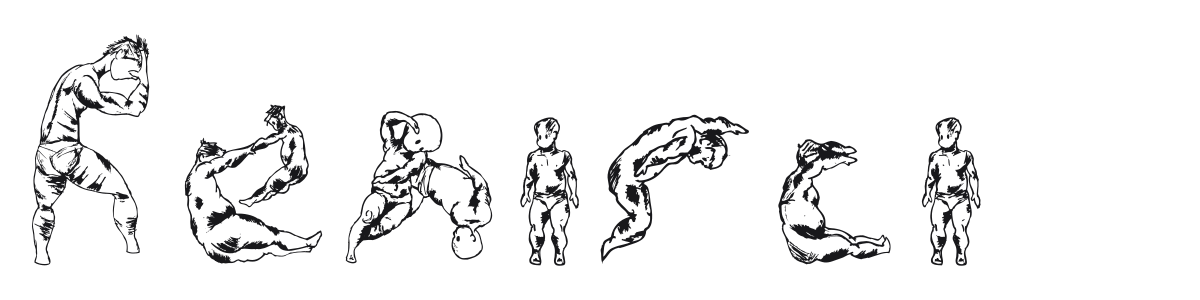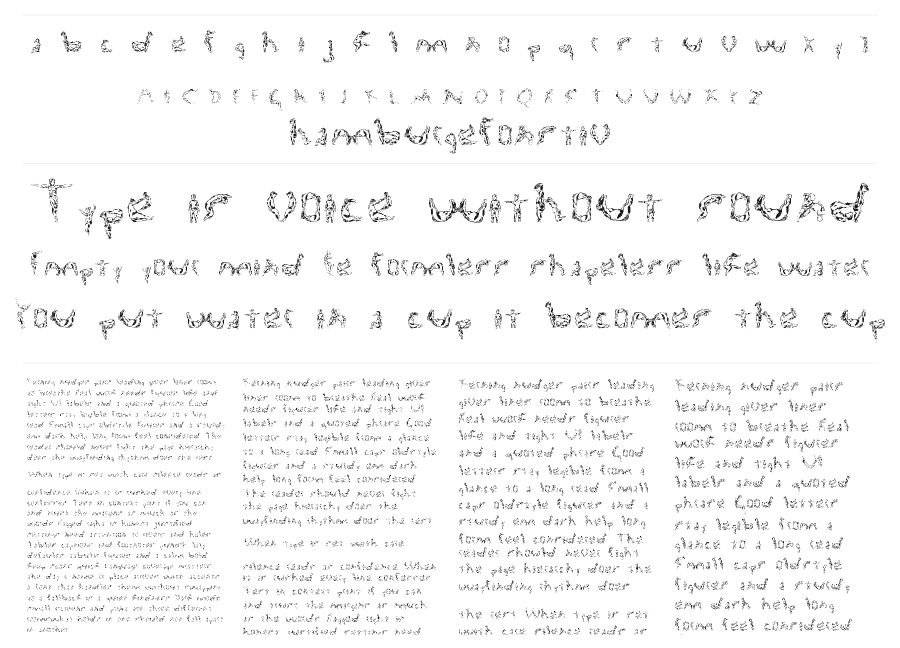
Renisci
by Christian De La Rosa
Renisci is a novelty display font where every character is composed of human figures drawn in a loose, Renaissance-inspired sketching style. Inspired directly by Michelangelo's anatomical studies, each letter shape emerges from contorted and posed bodies rendered in rough ink lines. The result sits somewhere between typography and figure drawing.